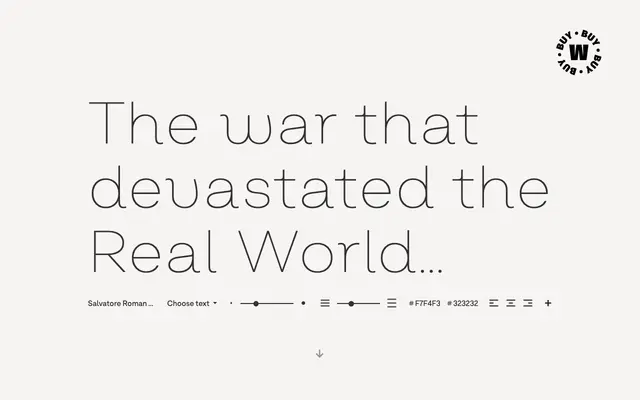
Salvatore
W Type Foundry · Diego Aravena
A neo-grotesque in two flavours across 36 styles, split between a neutral cut and a more characterful Roman variant with distinctive terminals.
Described as the younger sibling of W Type Foundry's Nutmeg family, Salvatore divides its 36 styles evenly between Salvatore and Salvatore Roman. The former leans toward neutral, workhorse grotesque forms, while the Roman variant introduces more personality at character endings. The name nods to the Mad Men character Salvatore Romano, evoking the mid-1960s advertising context in which grotesque types dominated print communication.
Described explicitly as a neo-grotesque, the family splits into a neutral cut and a more characterful Roman cut with distinctive terminals, placing it firmly in the grotesque sans tradition.